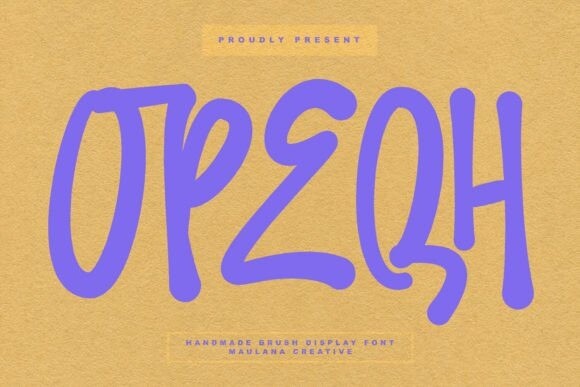
Opeqh Font
Designer: Maulana Creative
Opeqh Font is a playful handmade brush display font. It has a fun and quirky style with extra characters and special combinations to make your text stand out. Perfect for adding a personal touch to your designs!